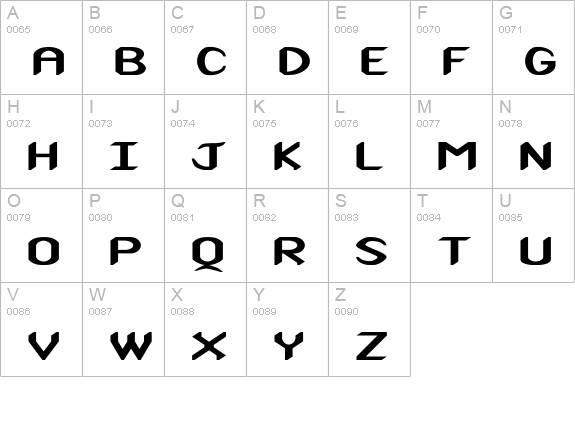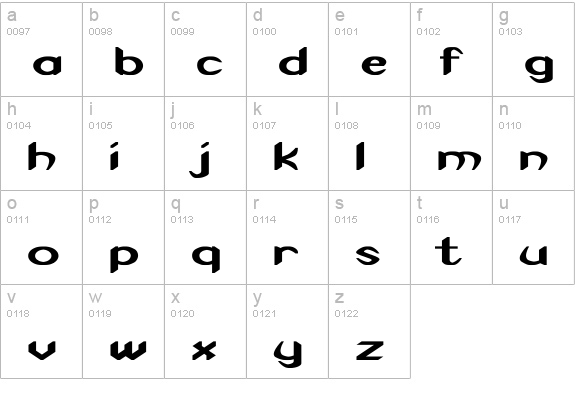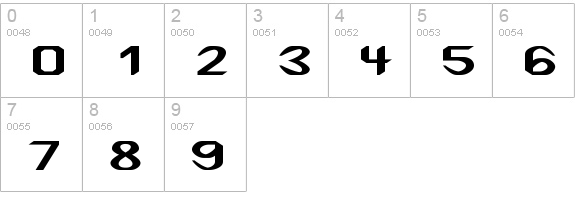
Cuneiform Ex Bold Font Details
Cuneiform Ex Bold is a strong, high-contrast variant in the Cuneiform typeface family \xE2\x80\x94 well suited to headlines, attention-grabbing titles, and strong calls-to-action.
Cuneiform Ex Bold font is a striking and powerful typeface that embodies the essence of ancient Mesopotamian script while offering a modern twist. Its bold and intricate design makes it perfect for adding a touch of historical charm to your projects. The sharp angles and geometric shapes of each character create a visually captivating look that demands attention. What sets Cuneiform Ex Bold font apart is not only its unique aesthetic but also its accessibility. This font is available for free download at FontsMarket.com, allowing designers and creators to easily incorporate it into their work without any cost. With its bold presence and historical appeal, Cuneiform Ex Bold font is a versatile choice for a wide range of design projects.